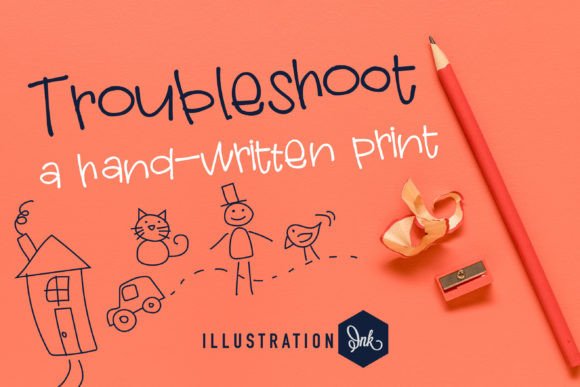
Prepare to be mesmerized by Troubleshoot, a whimsical and exuberant handwritten script font poised to elevate your design game! Illustration Ink's creative genius shines through in this exceptional font, meticulously crafted to inspire and captivate. Let Troubleshoot carry your creations to newfound heights, adding a dash of playfulness and charm to every project.
Step into a world where imagination knows no bounds, where Troubleshoot's lively strokes dance across your designs like a symphony of joy. This font is not just another tool; it's a gateway to unleashing your creative potential like never before. Say goodbye to mundane typography and embrace the vibrancy of Troubleshoot.
With Troubleshoot, you're not simply downloading a font; you're acquiring a passport to a realm where your ideas flourish. Let Troubleshoot be the catalyst that ignites your creativity, igniting a fire that burns brighter with each stroke. From eye-catching posters that demand attention to heartfelt handwritten notes that resonate with warmth, Troubleshoot is your trusty companion, ready to transform your vision into a tangible masterpiece.
Visualize the stunning posters you'll create, where Troubleshoot's carefree charm dances across the page, enchanting your audience with its captivating allure. Imagine invitations that radiate warmth and personality, adorned with Troubleshoot's playful strokes, inviting your guests to an unforgettable experience. The possibilities are as endless as your imagination.
So, whether you're a seasoned designer seeking to amplify your creative arsenal or a novice just starting your typographic journey, Troubleshoot is your perfect partner in crime. Its user-friendly charm makes it accessible to all, empowering you to create designs that resonate and connect.
Don't let another day pass without igniting your creative spirit. Embrace Troubleshoot, the key to unlocking a world of endless possibilities. Let this font inspire you, challenge you, and guide you to heights of creativity you never thought possible.